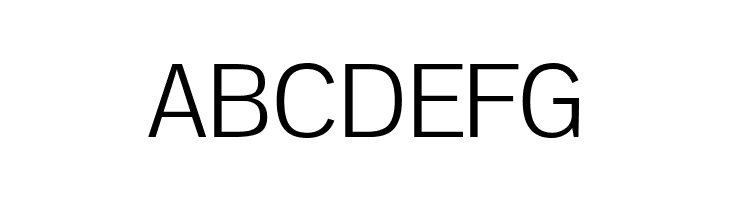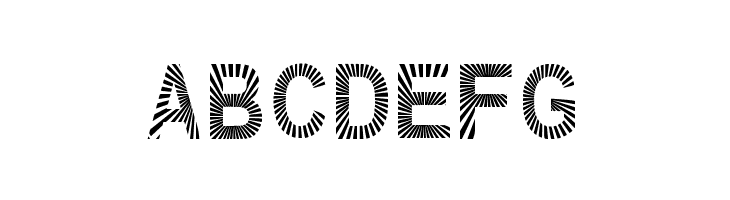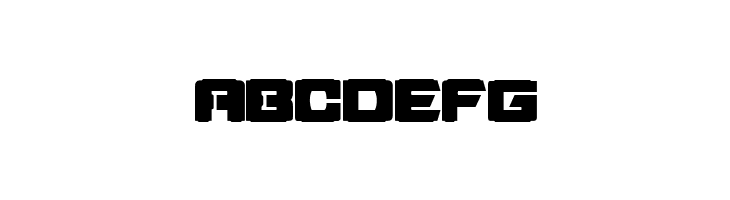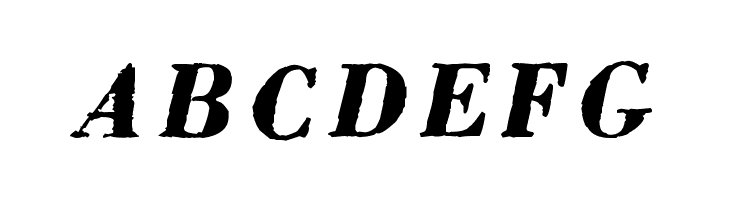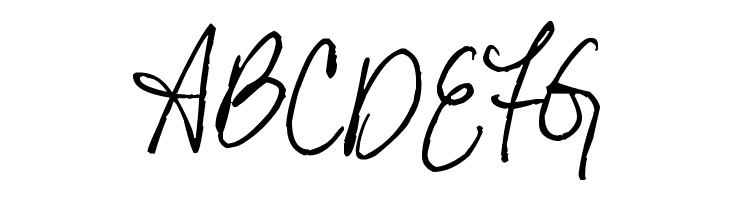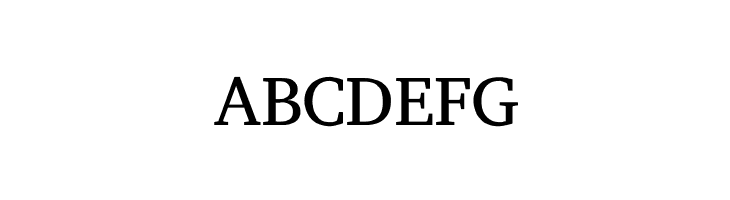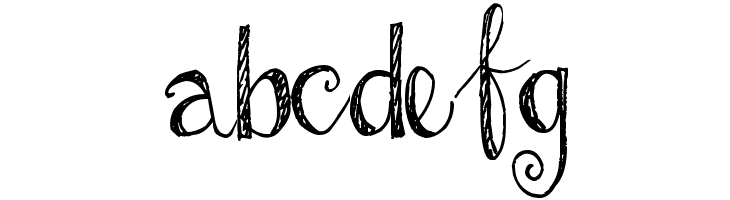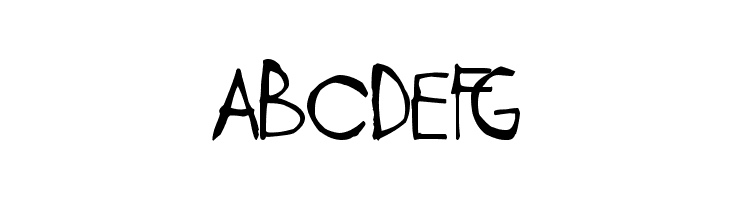
A modern, clean sans-serif font with uniform stroke width and excellent readability.
A clean and modern sans-serif font with balanced spacing and consistent stroke width.
A bold, zebra-striped font with a modern and artistic flair.
A bold, distressed font with a vintage, textured appearance.
A playful, hand-drawn font with a whimsical and energetic style.
A classic serif typeface with balanced proportions and medium contrast.